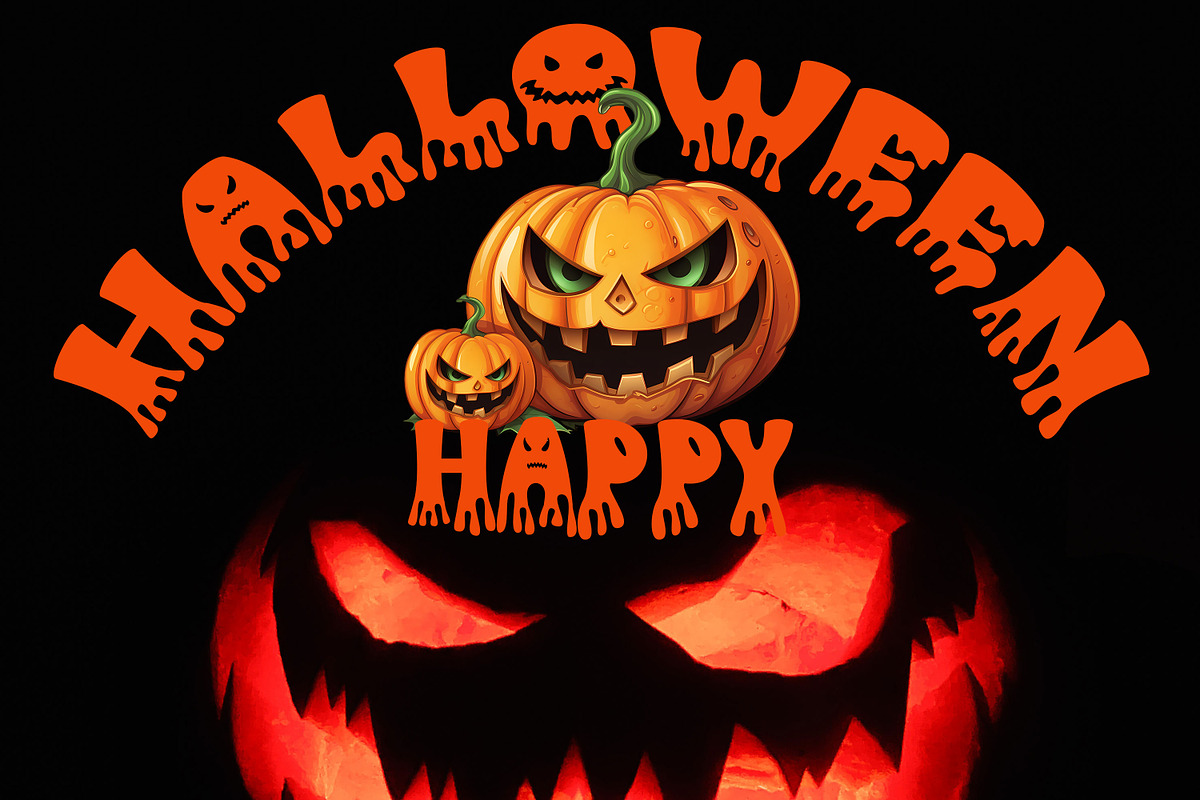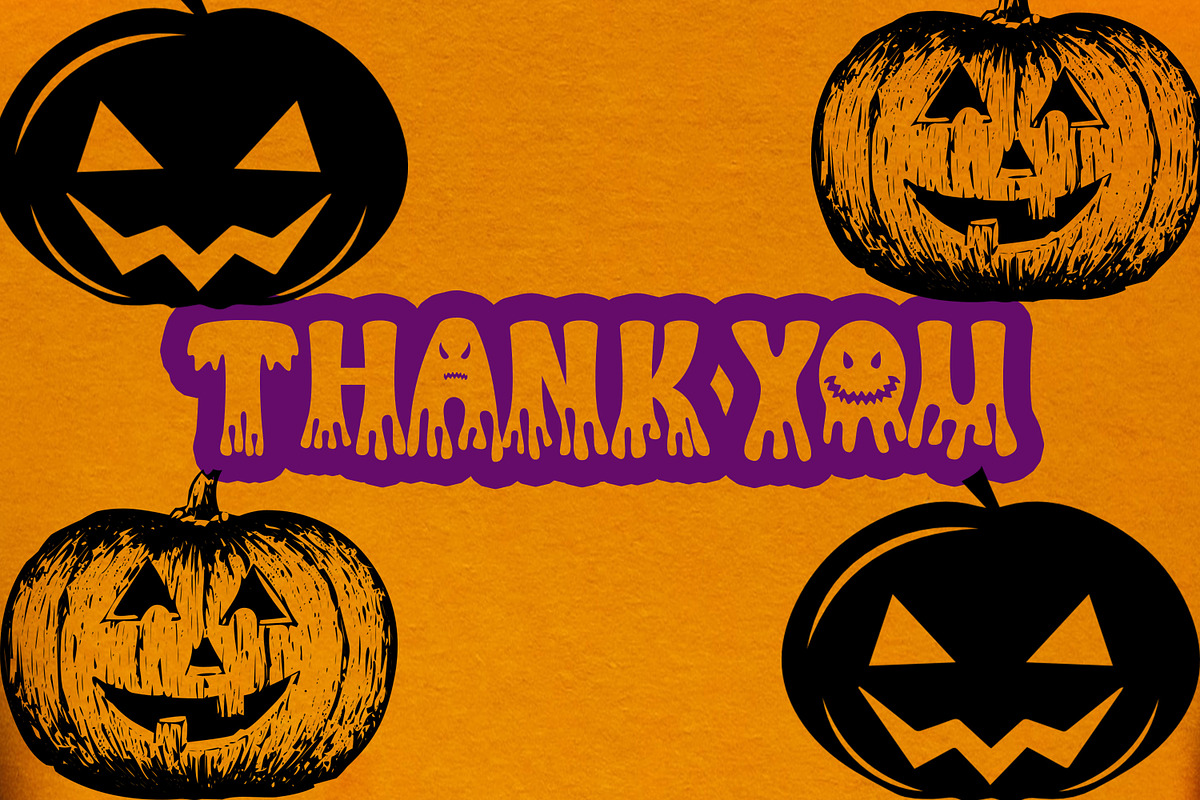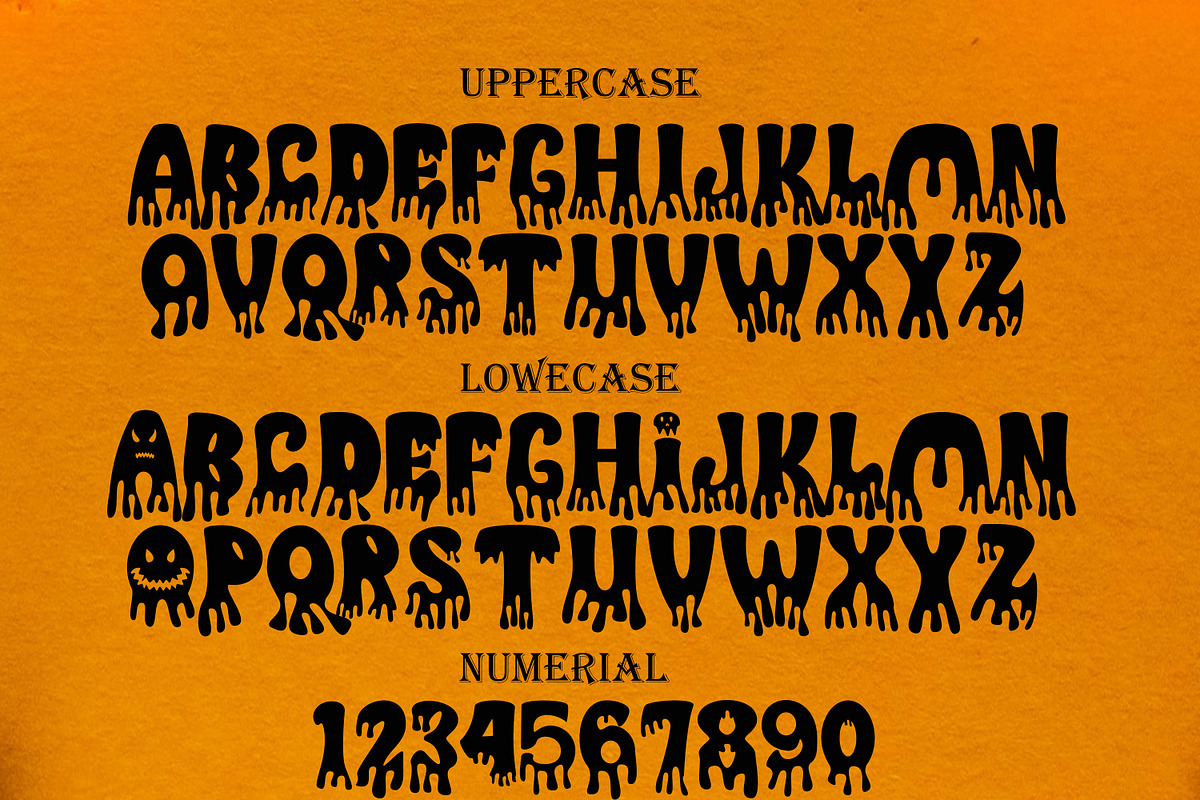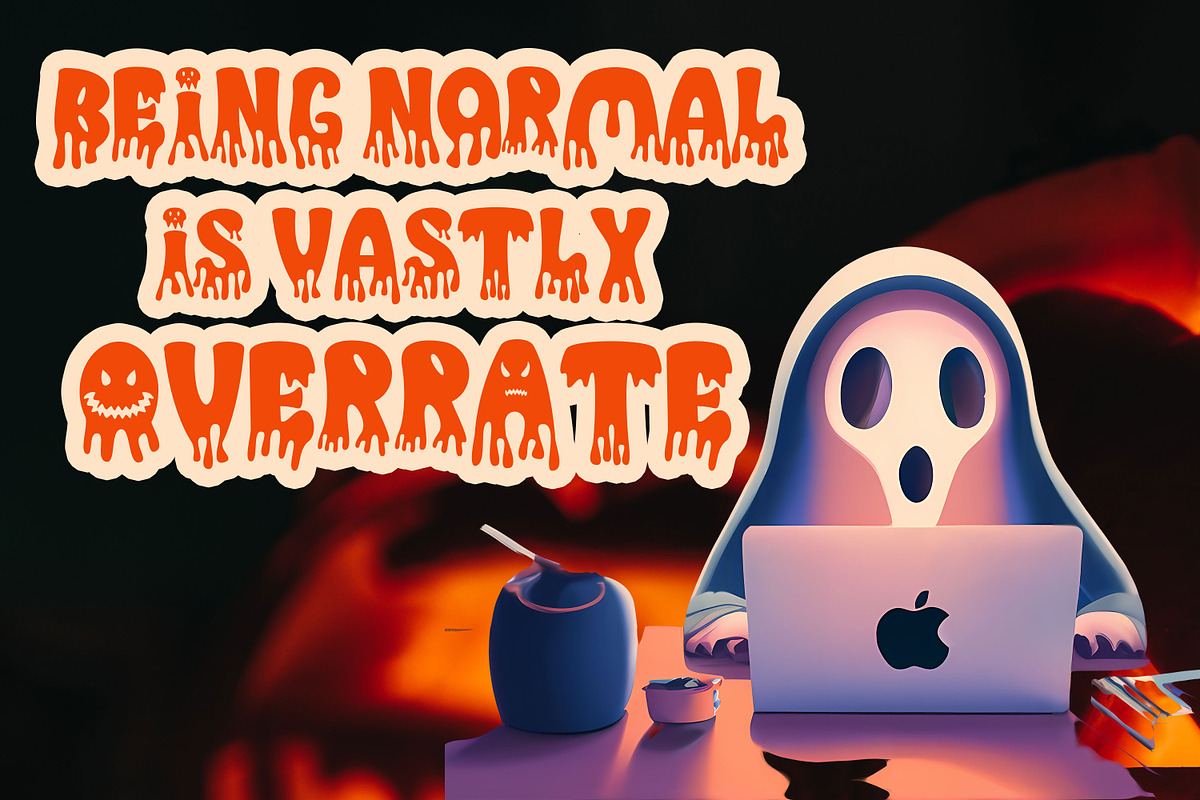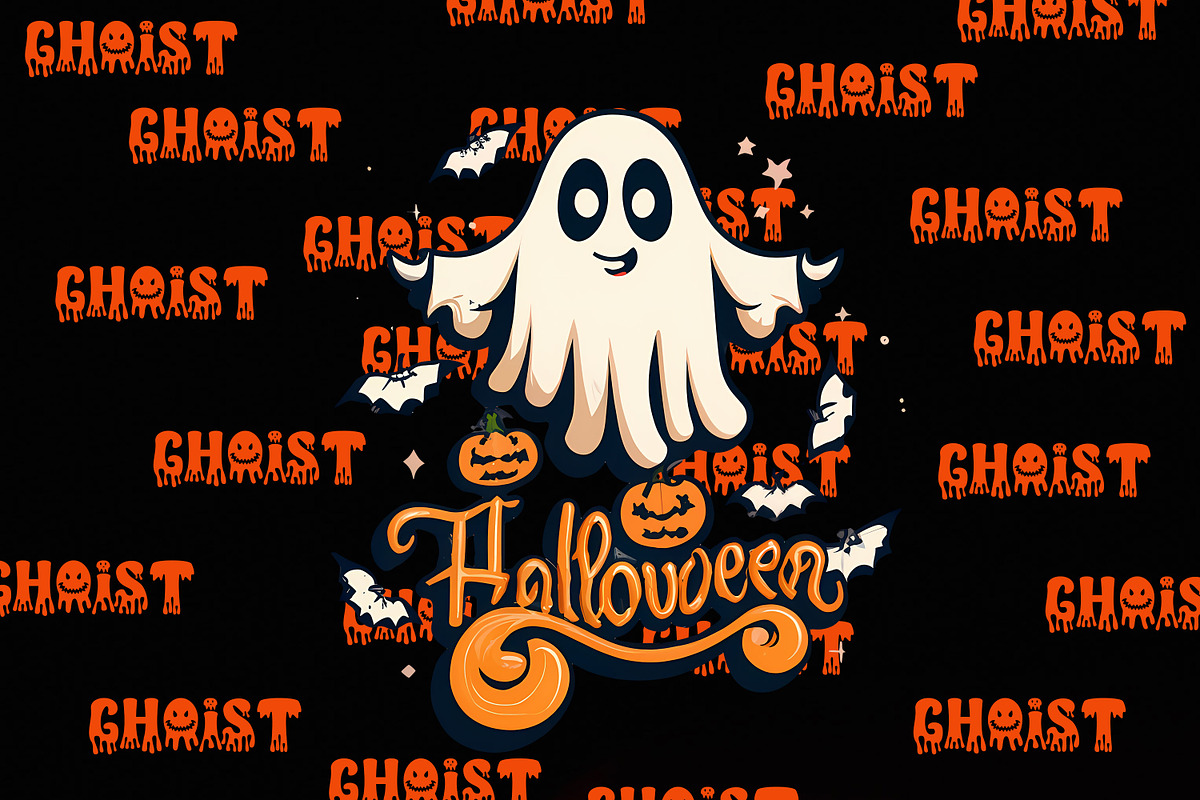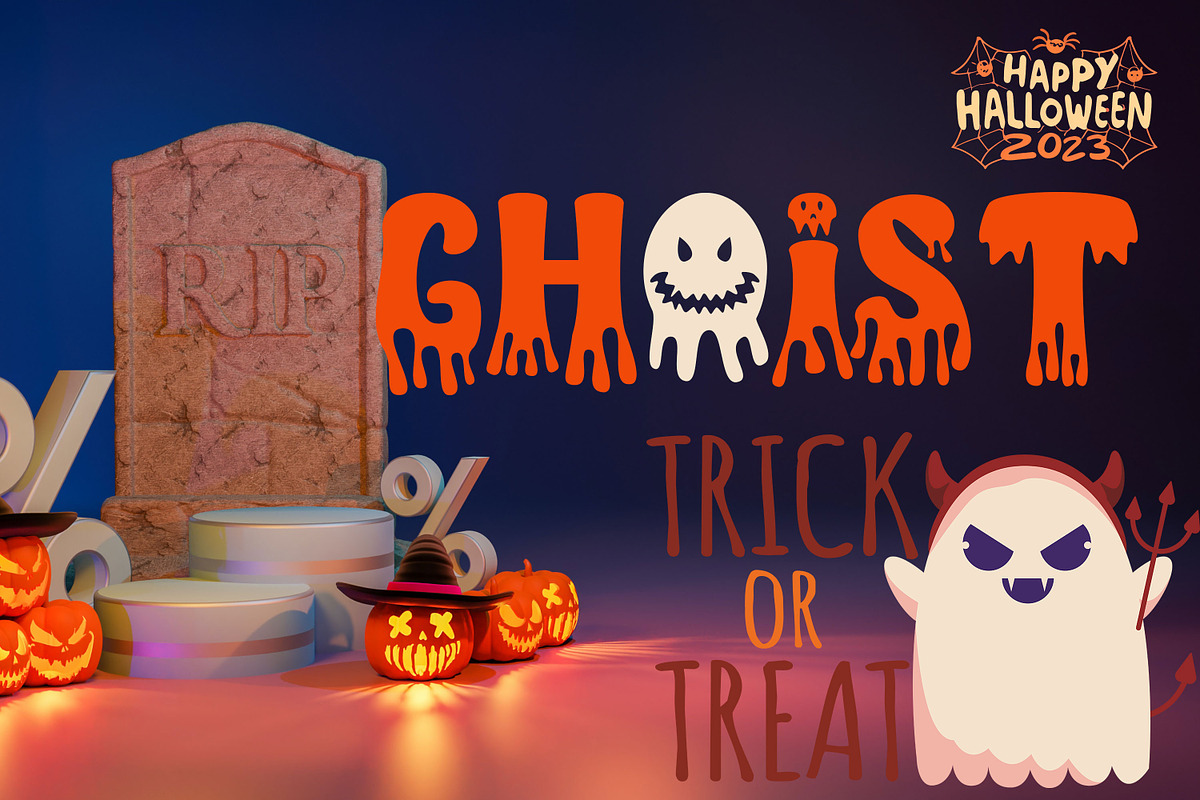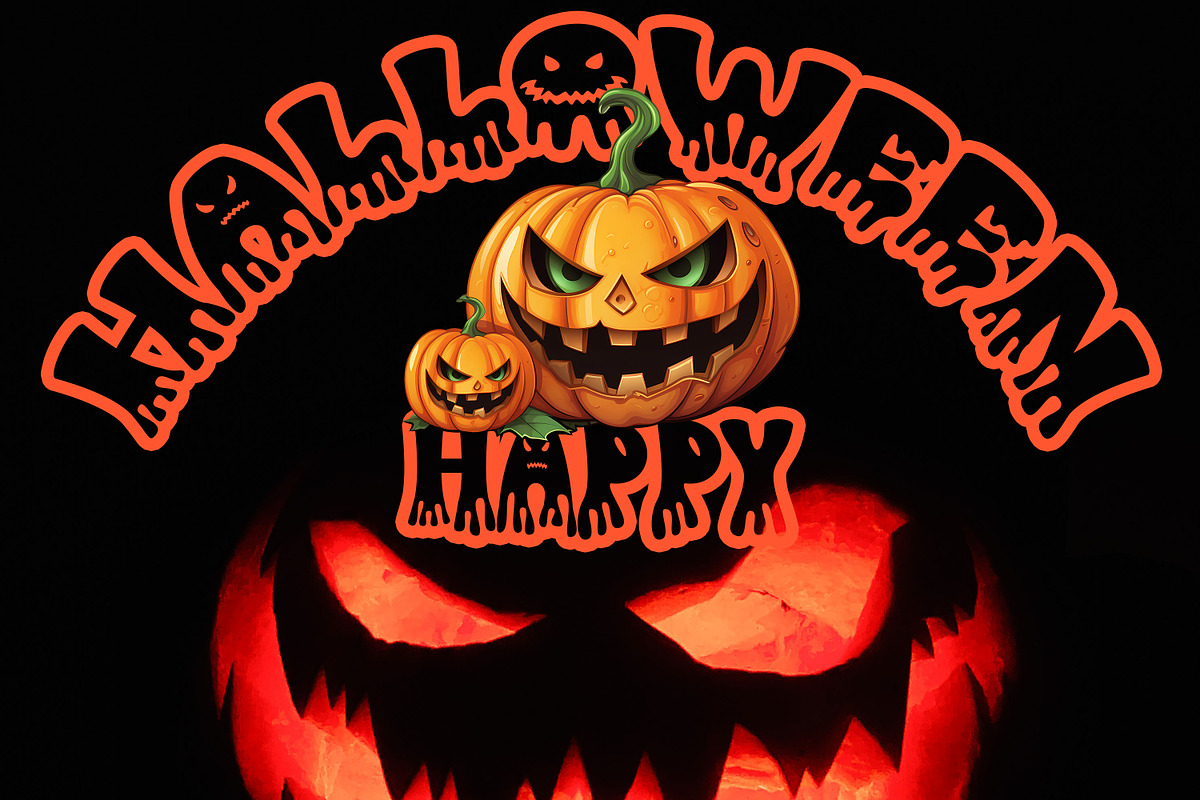
Ghoist
Ghoist is a fun and unique display font, a cool scary font for Halloween and other scary themed activities. Add this unique and spooky display font to any of your creative ideas and watch how it makes it stand out!